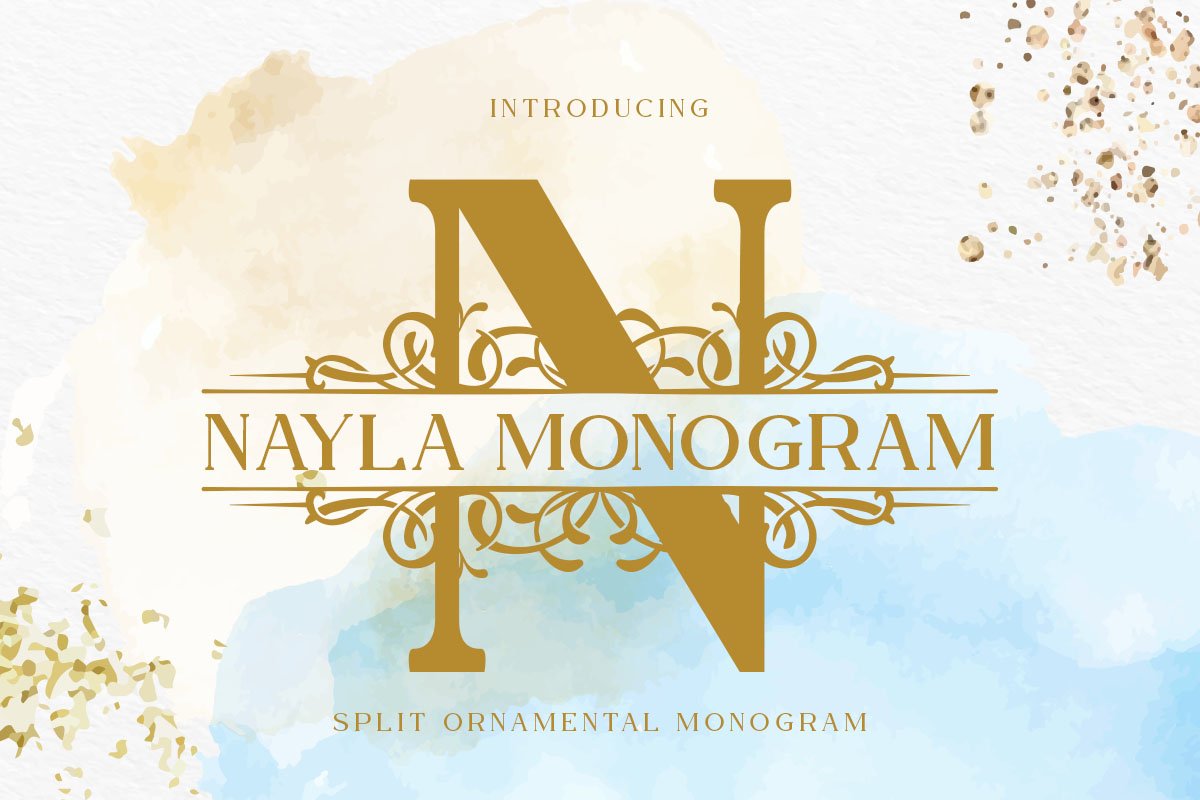
Nayla Monogram is an incredibly elegant and unique display font. Masterfully designed to become a true favorite, this font has the potential to bring each of your creative ideas to the highest level!